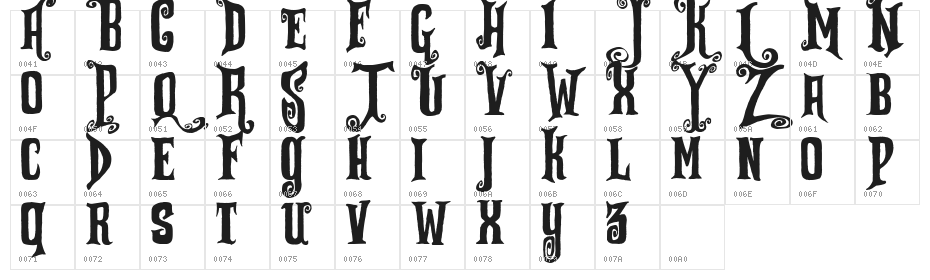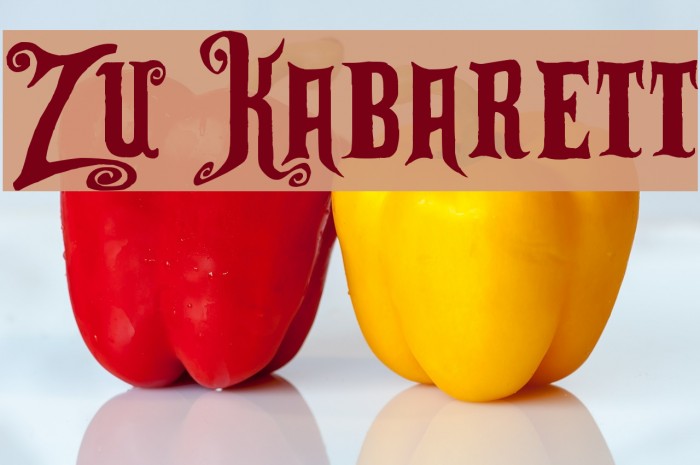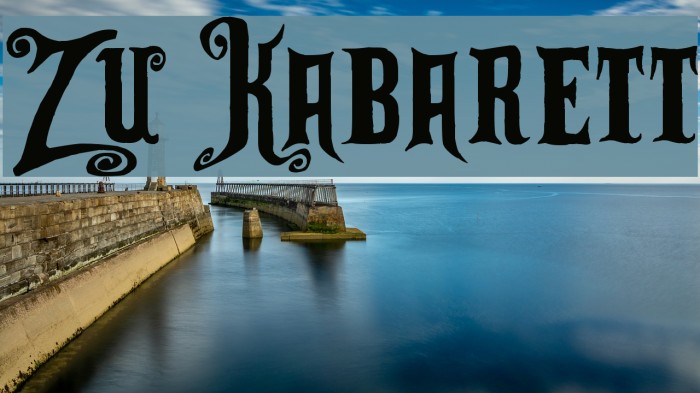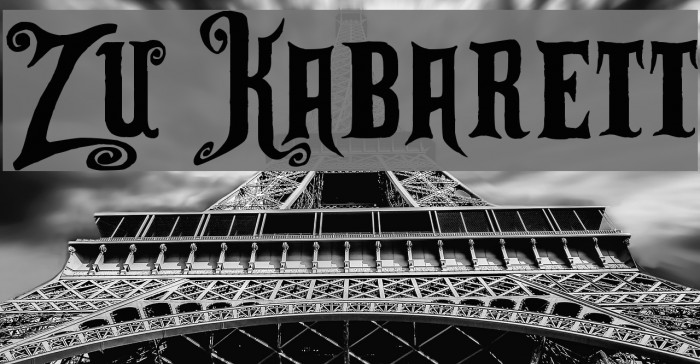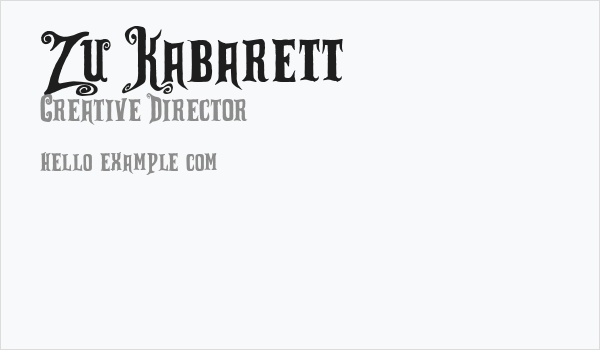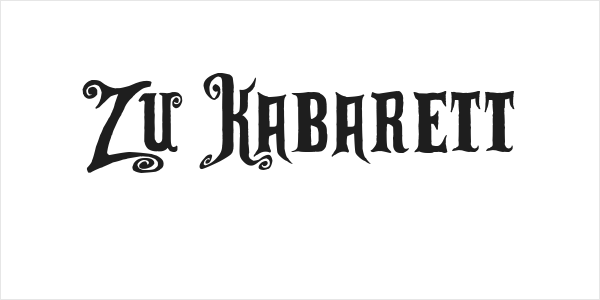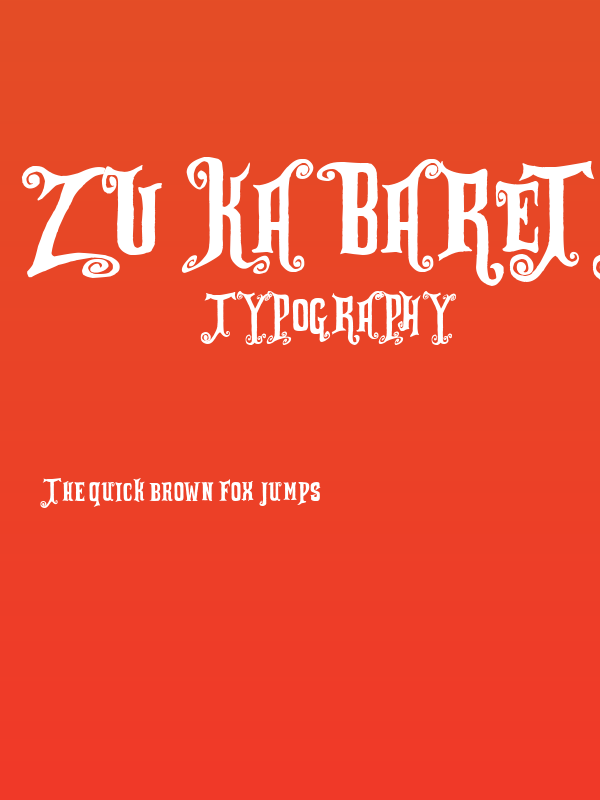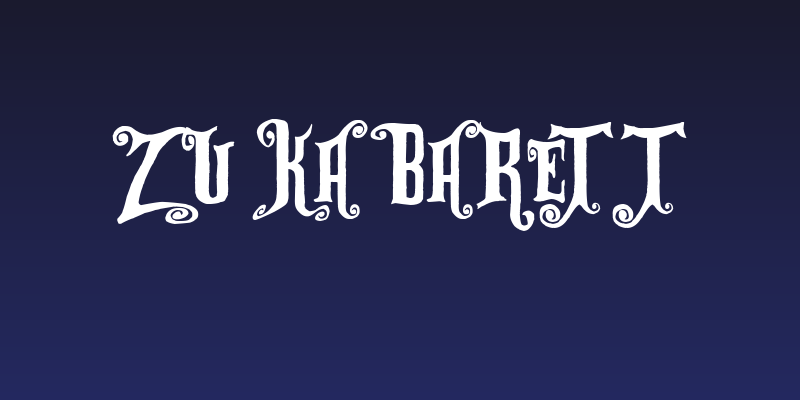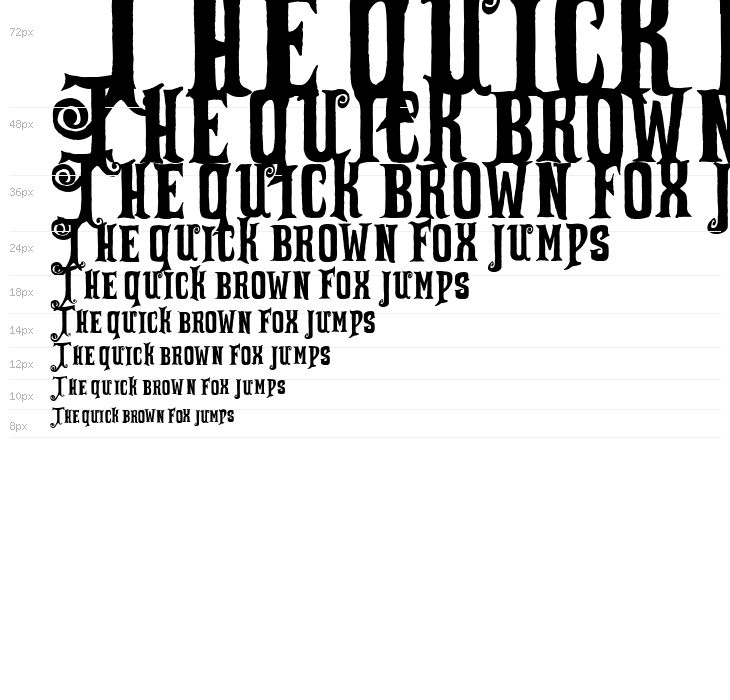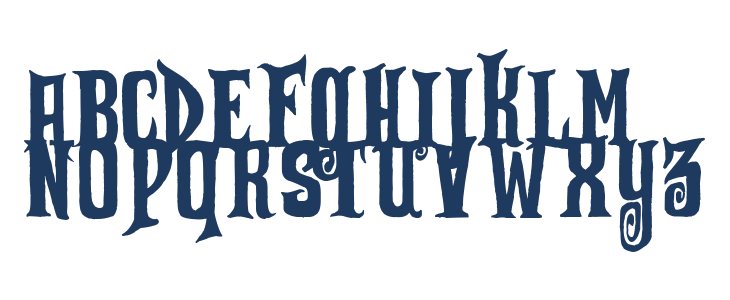
Zu Kabarett Font
Zu Kabarett Description
This font features a highly decorative and theatrical style, reminiscent of vintage cabaret and circus posters. The characters are bold and ornate, with intricate swirls and embellishments that add a sense of drama and flair. Each letter is uniquely crafted, with exaggerated serifs and playful curves that create a whimsical and eye-catching appearance. The font exudes a sense of nostalgia and charm, making it ideal for projects that require a touch of vintage elegance and artistic expression.
Overall StyleVintage
Use CaseHeadlines, Posters, Logos
Proposed ProjectsIdeal for theatrical posters, vintage-themed events, circus flyers, and artistic branding.